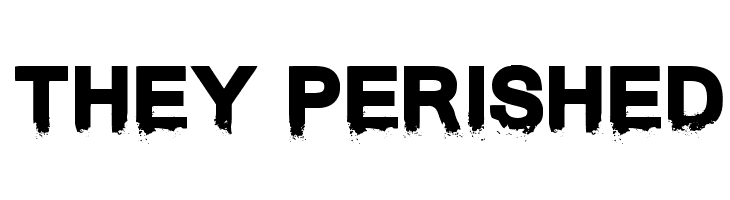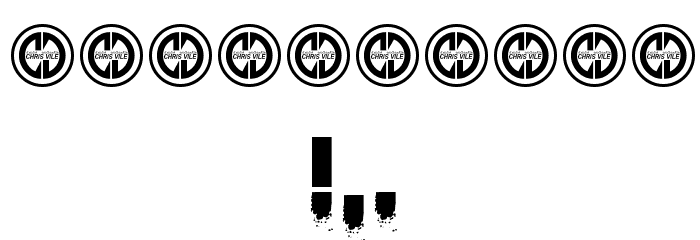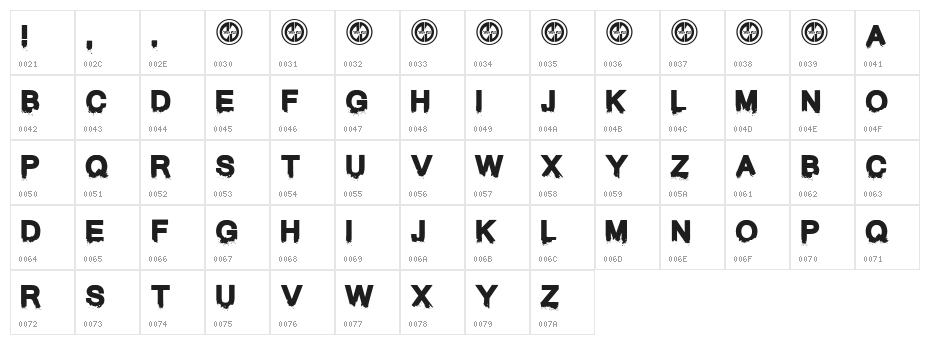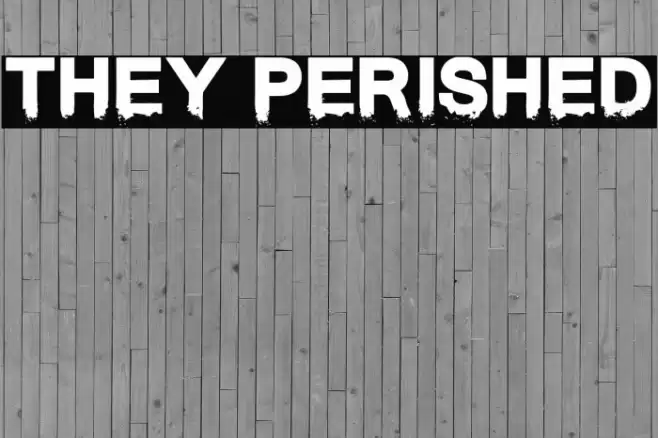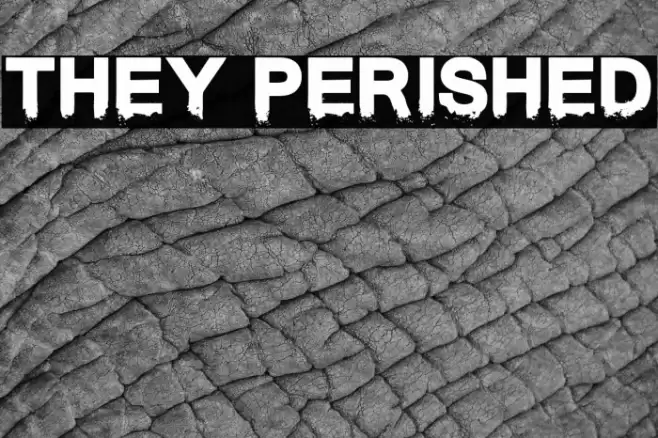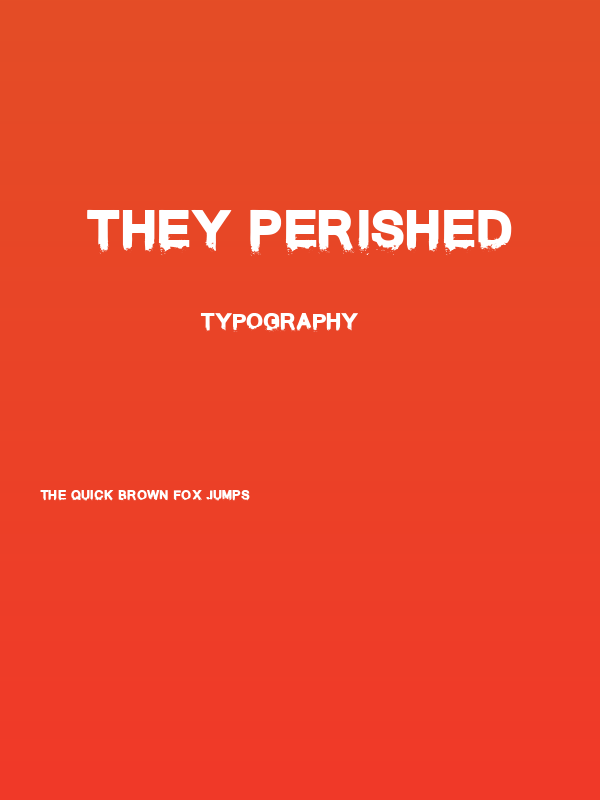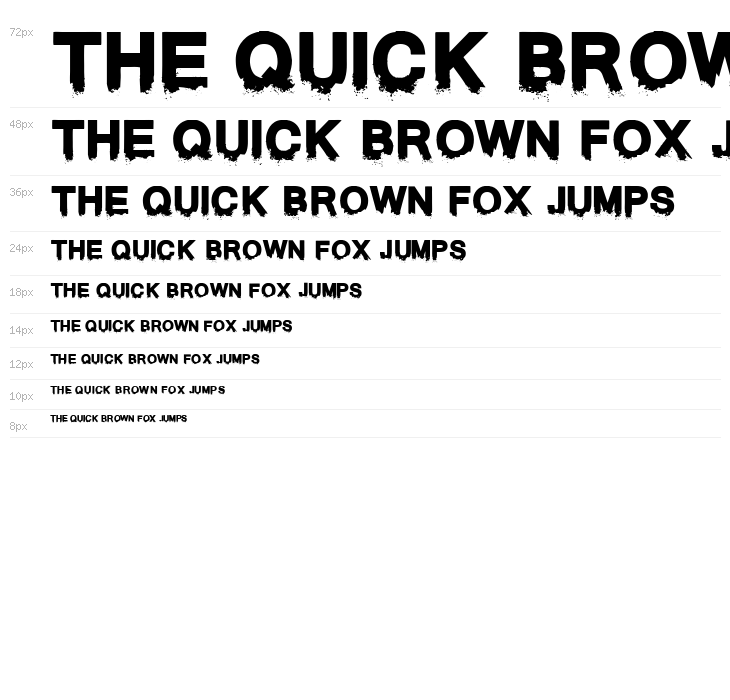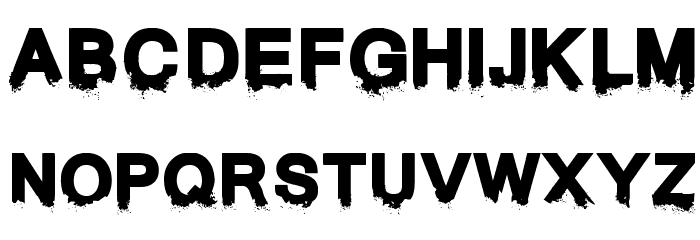
They Perished Font
They Perished Description
This font features a bold, distressed style with a grunge effect that gives it a rugged and edgy appearance. The uppercase letters are prominent and impactful, making them ideal for attention-grabbing designs. The characters have a slightly rough texture, adding a sense of depth and character. The font's unique style is well-suited for projects that require a bold statement, such as posters, album covers, or branding for alternative or rock-themed events.
| Overall Style | Grunge, Edgy |
| Proposed Projects | Ideal for posters, album covers, branding for alternative events, and any project needing a bold statement. |